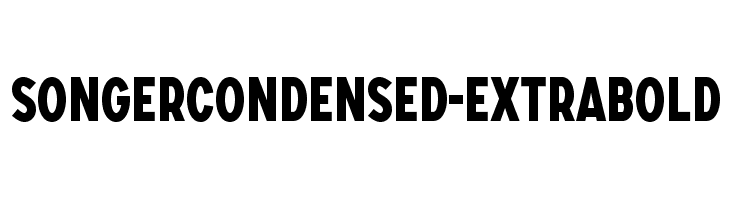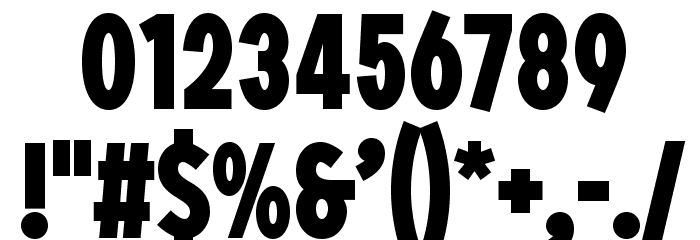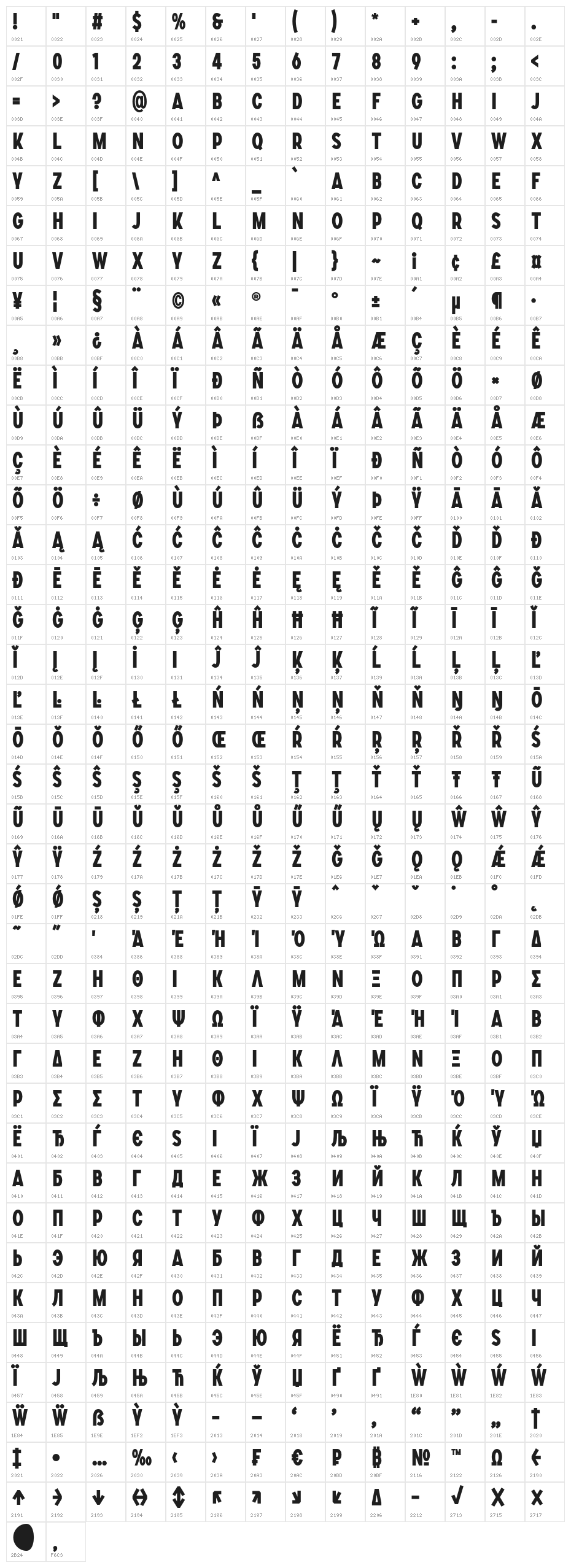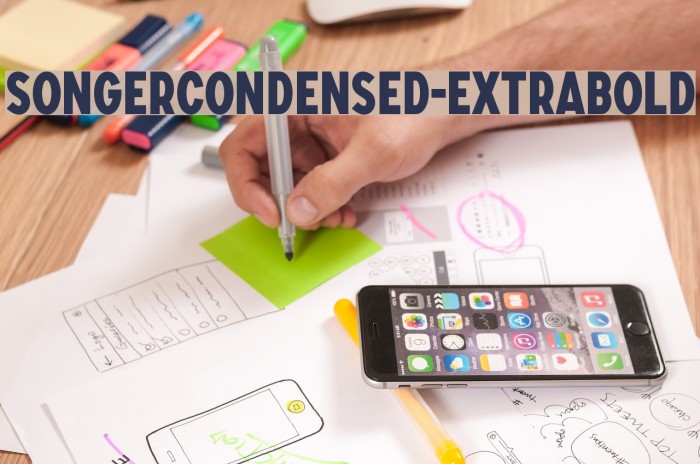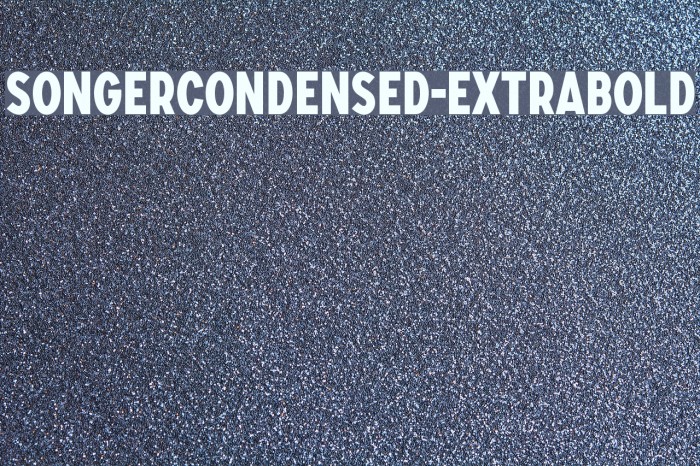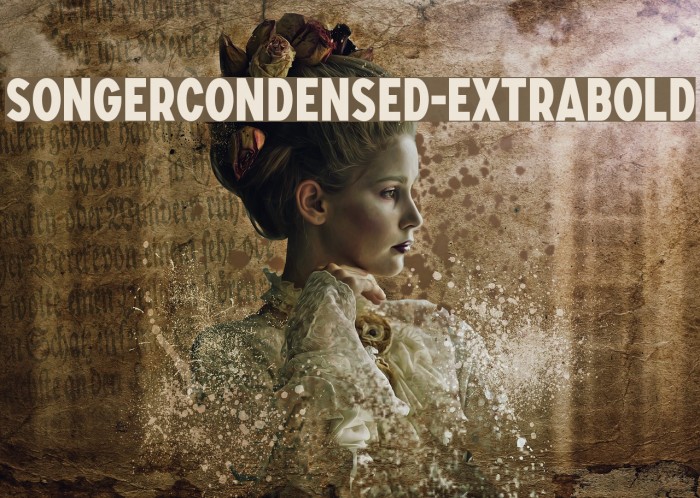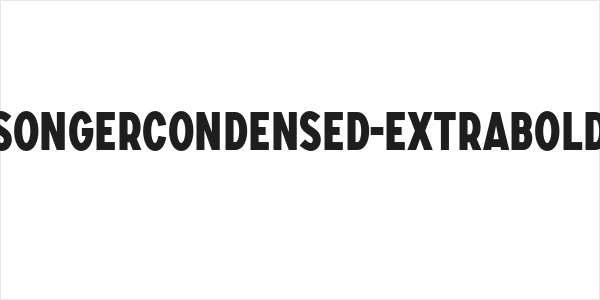
SONGERCondensed-ExtraBold Font
SONGERCondensed-ExtraBold Description
This font features a bold and impactful design with a condensed structure, making it ideal for attention-grabbing headlines and titles. The characters are uniformly thick, providing a strong visual presence. The uppercase and lowercase letters maintain a consistent style, with clear, sharp edges and a modern aesthetic. The numerals and special characters are equally bold, ensuring readability and emphasis. The overall design is clean and straightforward, with no unnecessary embellishments, focusing on delivering a powerful visual impact.
| Proposed Projects | Ideal for posters, banners, advertising, and branding materials where a strong, bold statement is needed. |